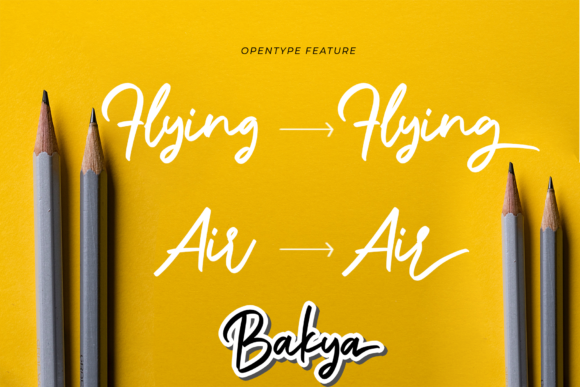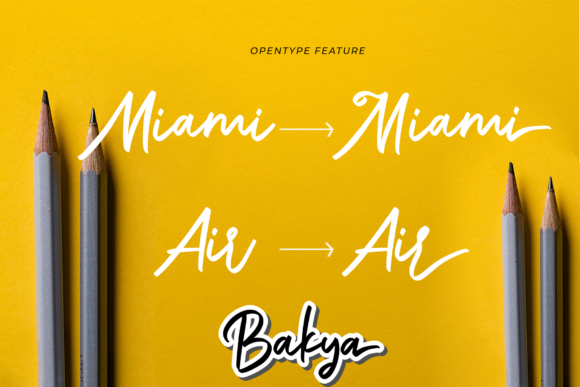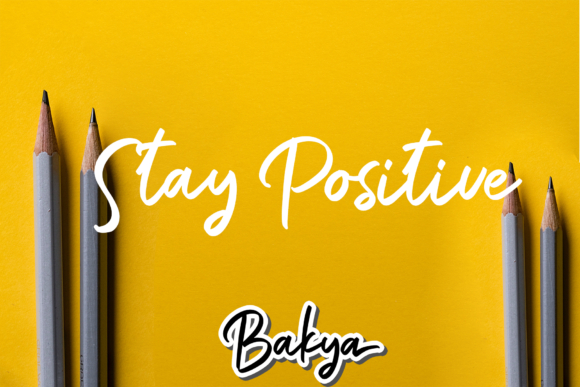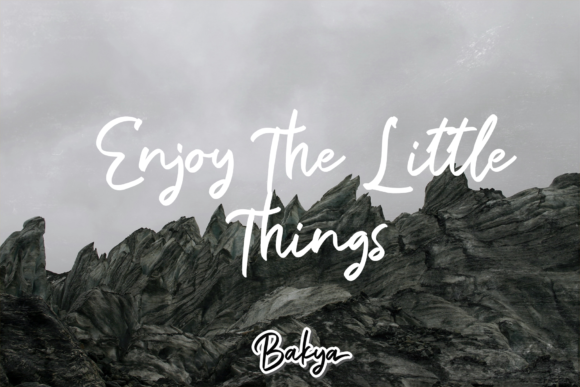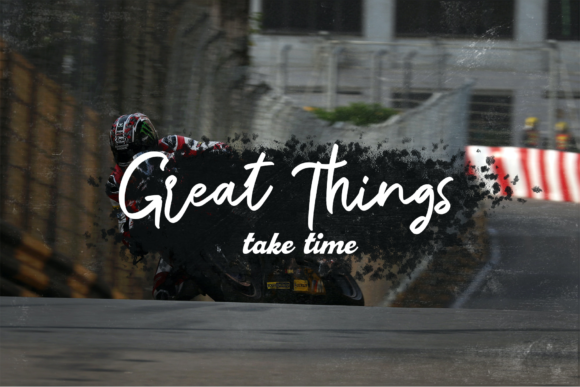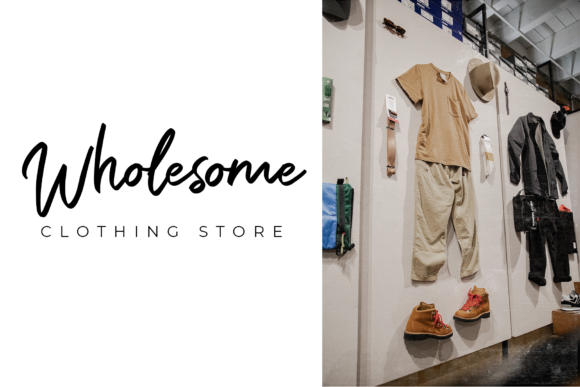
The Designer’s Delight: A Deep Dive into Bakya Font
Bakya is a modern, paint-brushed handwritten font that has a clean, thin, and smooth vibe. It’s perfect for adding a personal touch to any design project. In this article, I’ll share my honest review of Bakya Font, provide a practical guide on how to use it, and explore similar fonts and alternatives.
What I Love About Bakya Font
- ✨ Unique and modern design: Bakya Font has a fresh and contemporary look that’s perfect for designs that need a bit of personality.
- ✅ Clean and smooth lines: The font’s clean and smooth lines make it easy to read and perfect for body text.
- 💫 Versatile: Bakya Font can be used for a wide range of design projects, from branding and advertising to packaging and signage.
While Bakya Font is an excellent choice for many design projects, there are a few quirks to be aware of:
- ⚠️ Limited language support: Bakya Font may not support all languages, so be sure to check the font’s specifications before using it for a project.
- 🤔 Some glyphs may not be available: While Bakya Font has a wide range of glyphs, some may not be available. Be sure to check the font’s glyphs before using it for a project.
Bakya Font supports OpenType features, glyphs, and stylistic alternates. Here’s how to access them:
The Story Behind Bakya Font
Bakya Font was designed by a team of typographers who wanted to create a modern, handwritten font that was both clean and elegant. The font was inspired by the beauty of brush strokes and the simplicity of modern design. The designers behind Bakya Font aimed to create a font that was versatile and easy to use, perfect for a wide range of design projects.
| Font Name | Bakya Font |
| Author | The1stWinner |
Q: What is Bakya Font?
Bakya Font is a modern, paint-brushed handwritten font with a clean, thin, and smooth vibe.
Q: Does Bakya Font support OpenType features?
Yes, Bakya Font supports OpenType features, glyphs, and stylistic alternates.